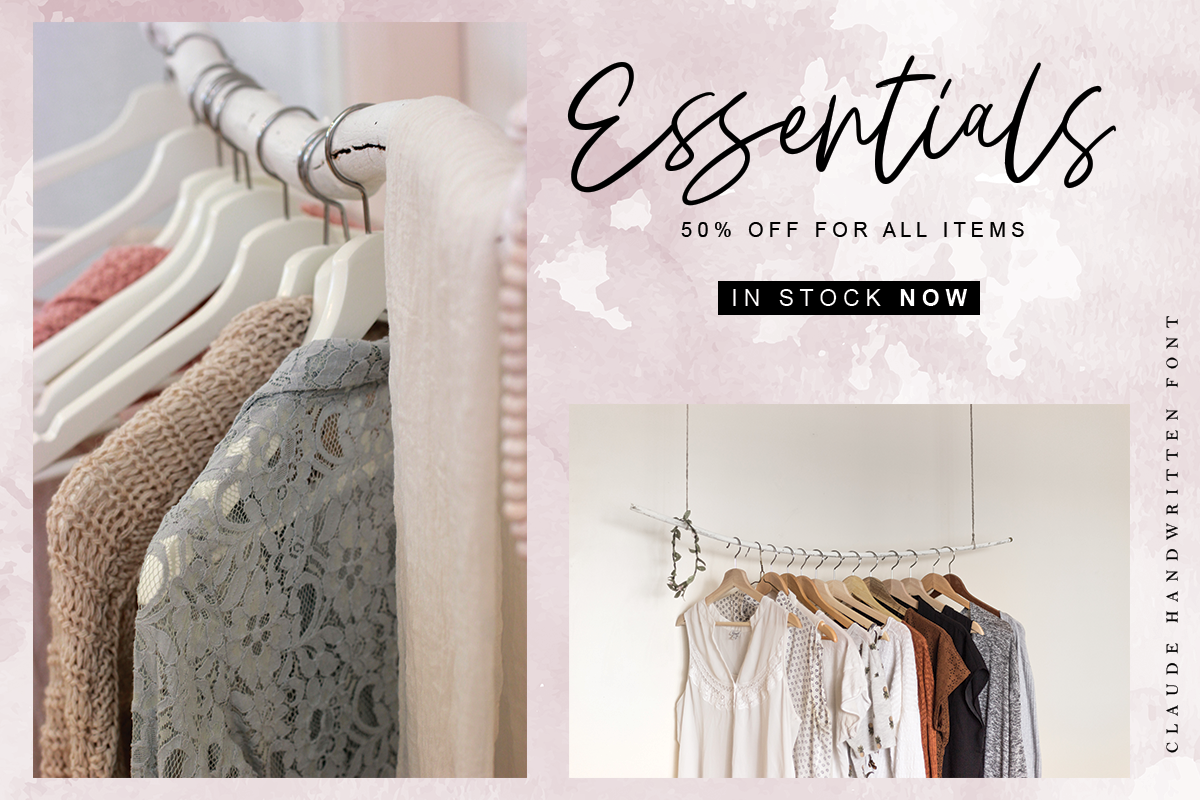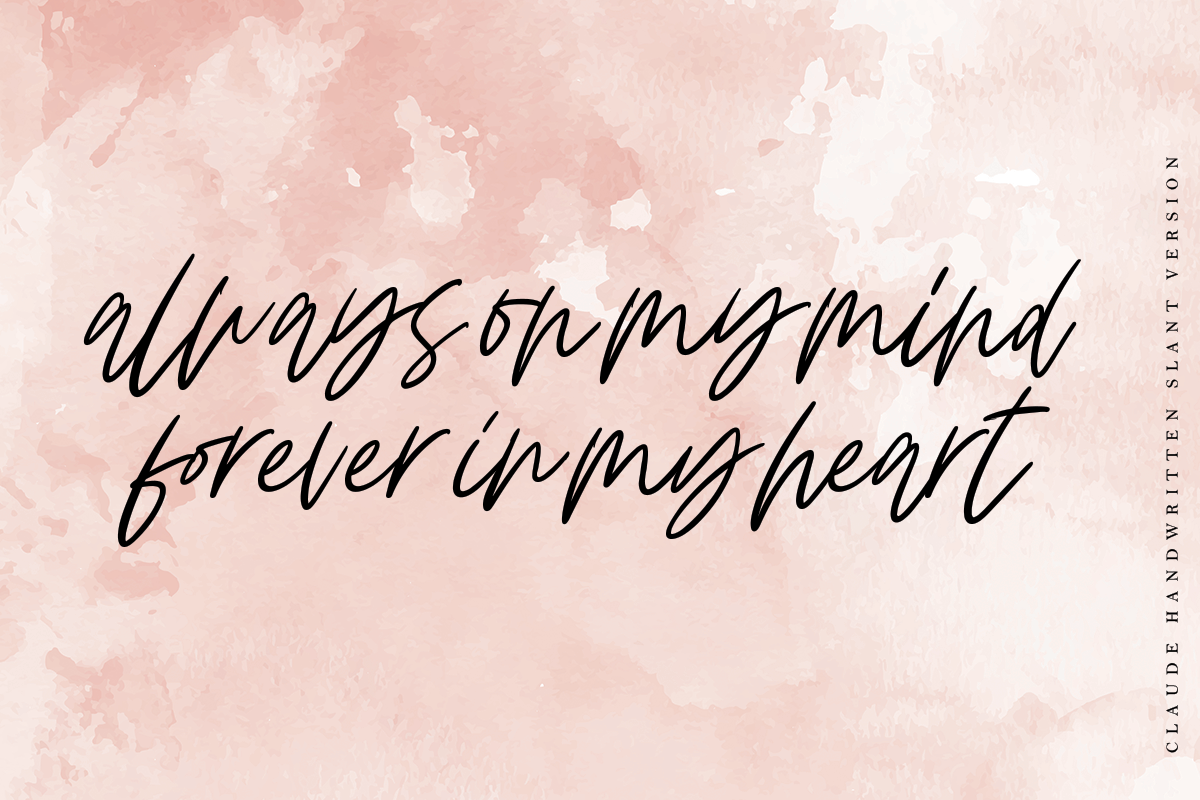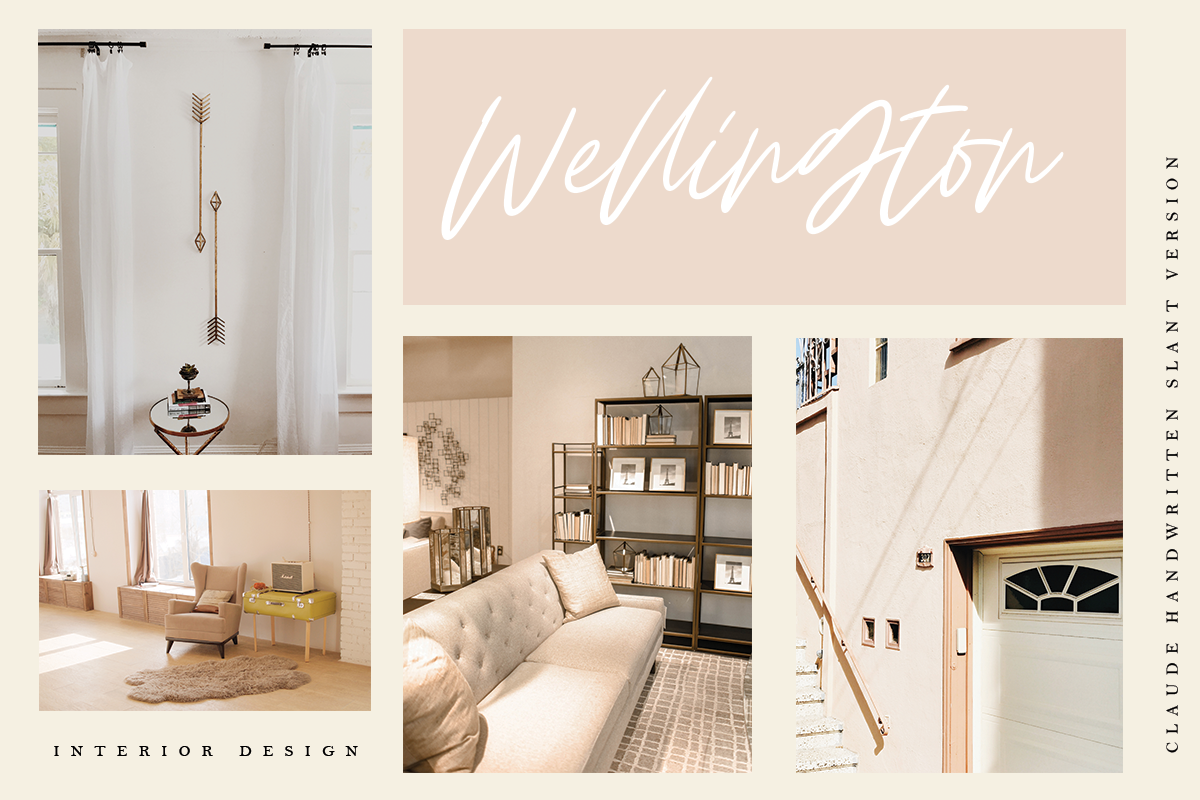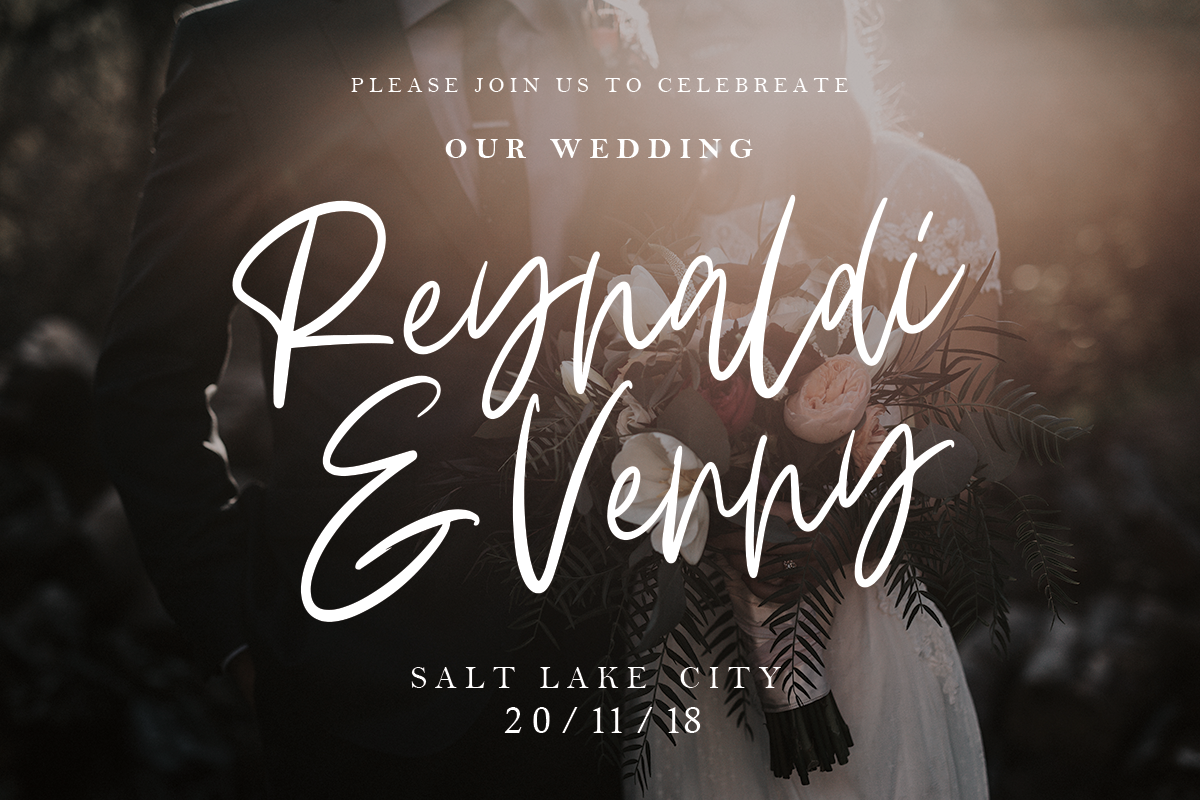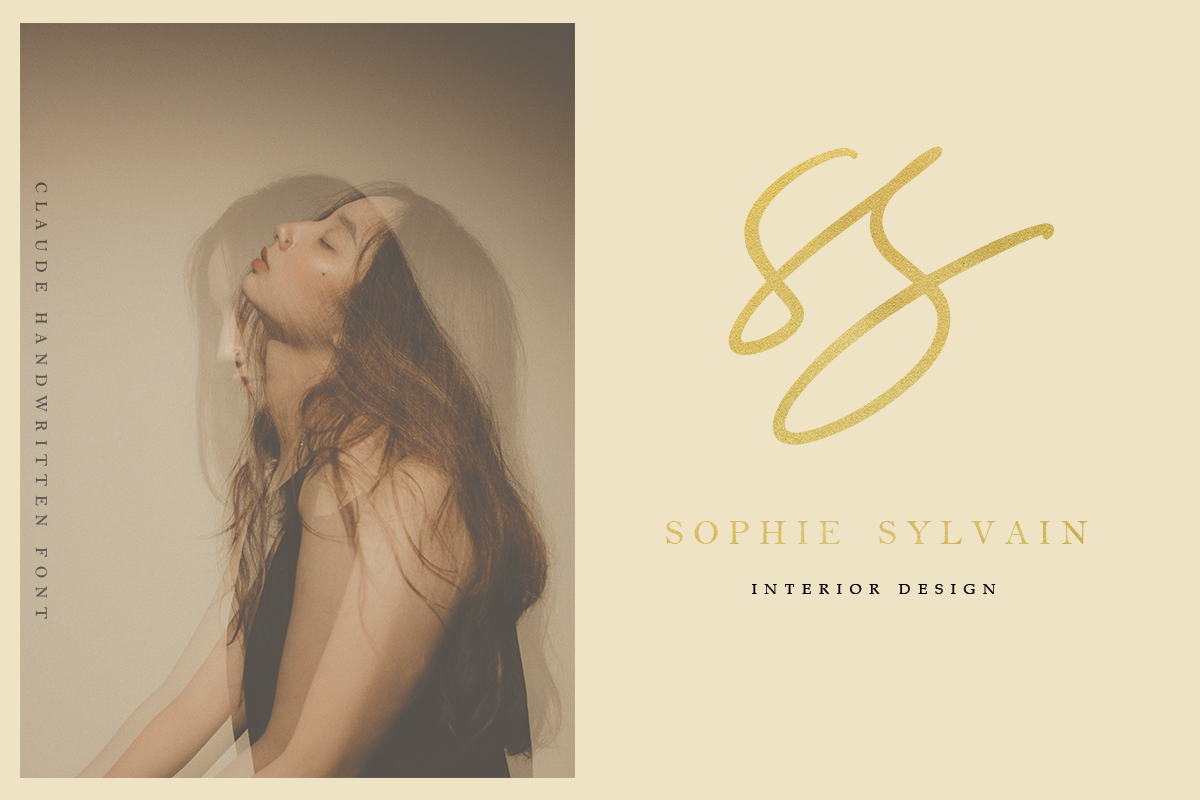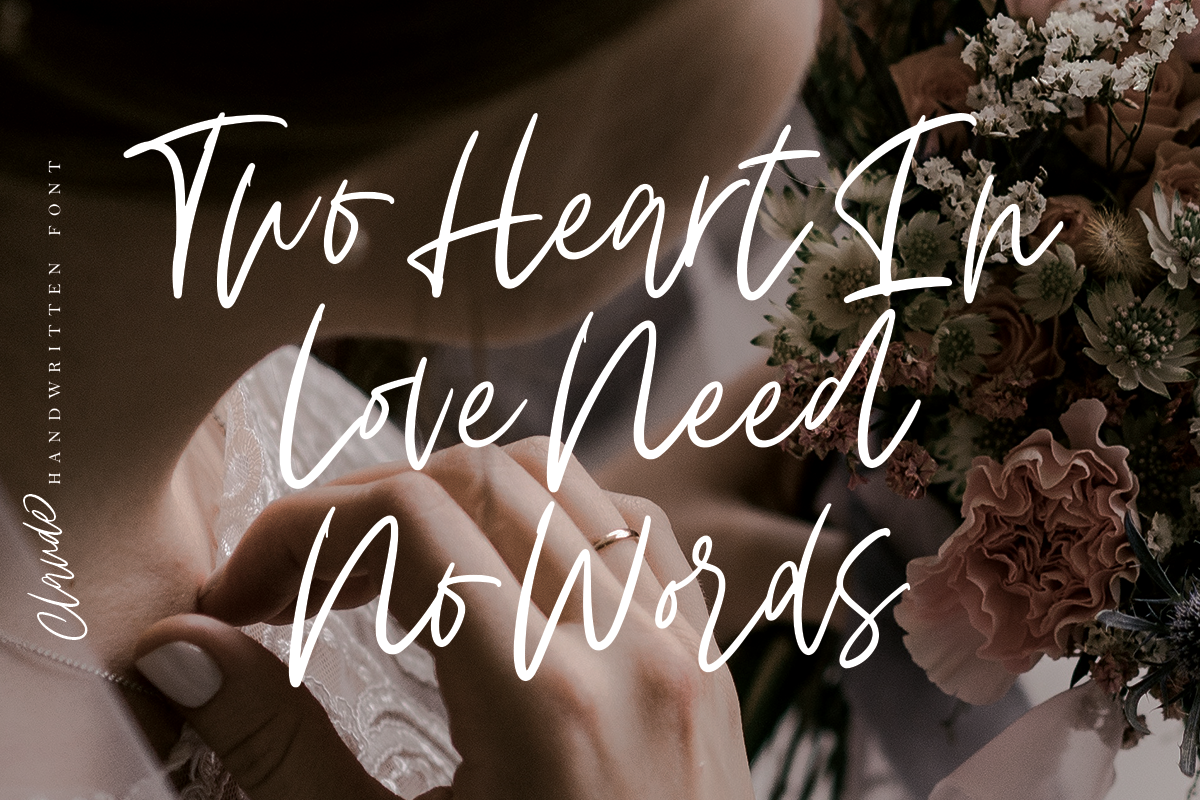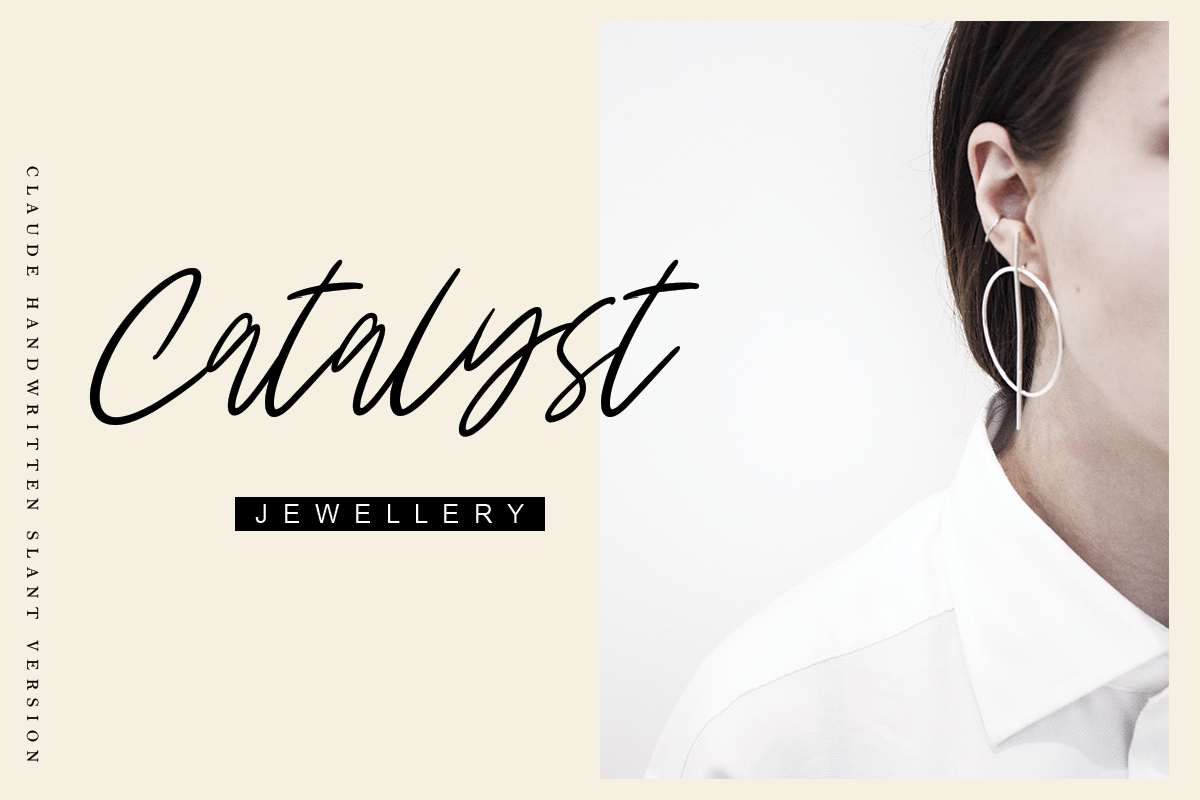
INTRODUCE .... Claude Handwritten Font
Claude Handwritten Font is a feminine type of Hanwritten. You can use it as a type of logo, badge, packaging, title, poster, t-shirt / clothes, greeting cards, wedding invitations and more. The flowing character is ideal for creating interesting messages, plus an ideal ligature and slant version for adjusting your project.
Claude multilingual support:
áäåãéèëìïîòöôøùüAÀÁÂÃÄÅEÈÉÊËIÌÍÎÏNÑOÒÓÔÕÖUÙÜÚÛYÝŸ
Claude font ligature:
aa ai al ar as cr dd de ee es er ff ii il ir is it ll lt ol om on oo or os ss ti to ts tl tt tu